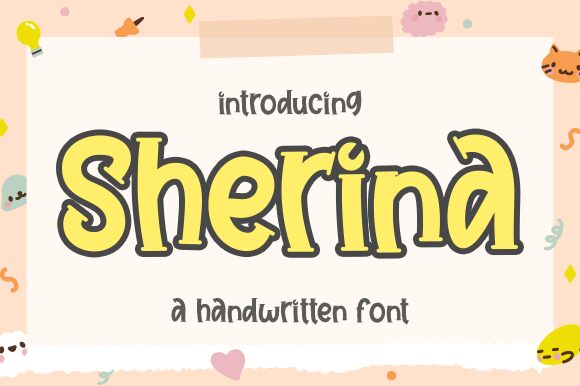
Sherina
Meet Sherina - the bold and striking display font designed by Nirmala Creative. With its semi-condensed width, Sherina is perfect for projects that require a strong and impactful presence. Its bold weight commands attention, making it ideal for headlines, titles or branding materials. The clean lines and simple curves of Sherina's letterforms give it a modern edge that works well in both digital and print media. This versatile typeface is suitable for a range of projects from fashion editorials to tech websites to restaurant menus. Make your message stand out with the distinctive style of Sherina!